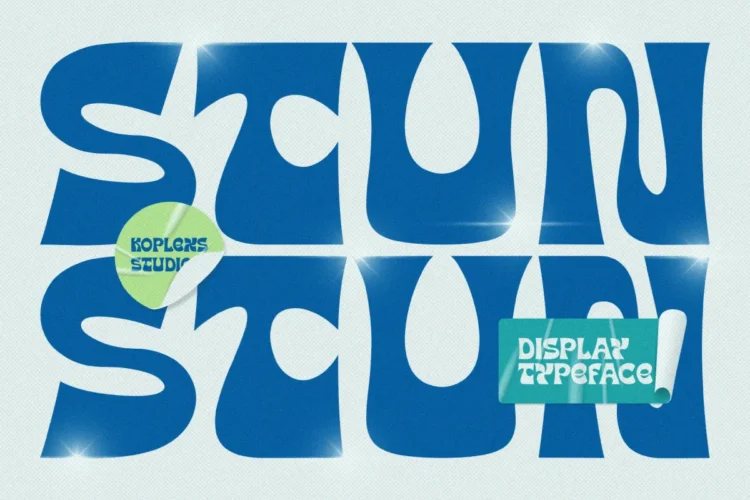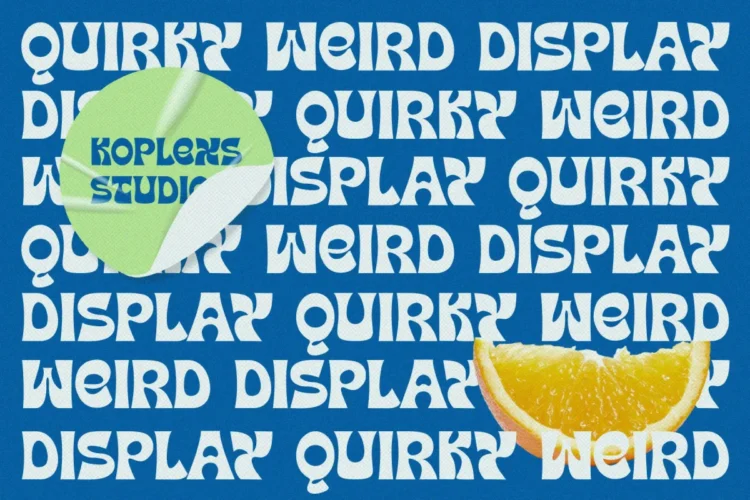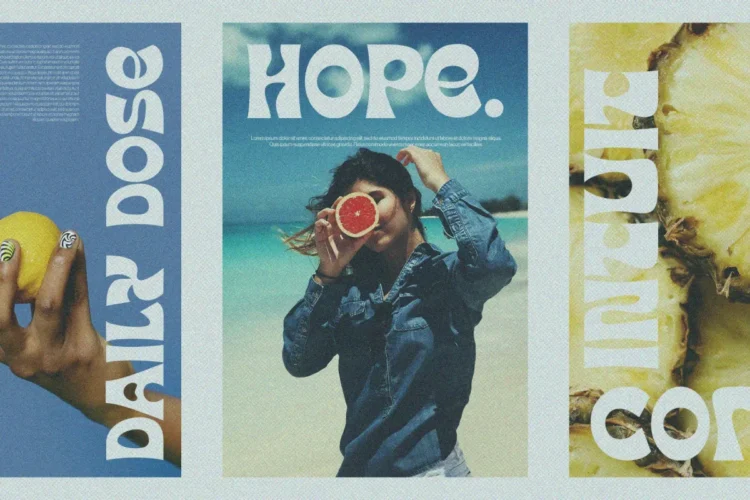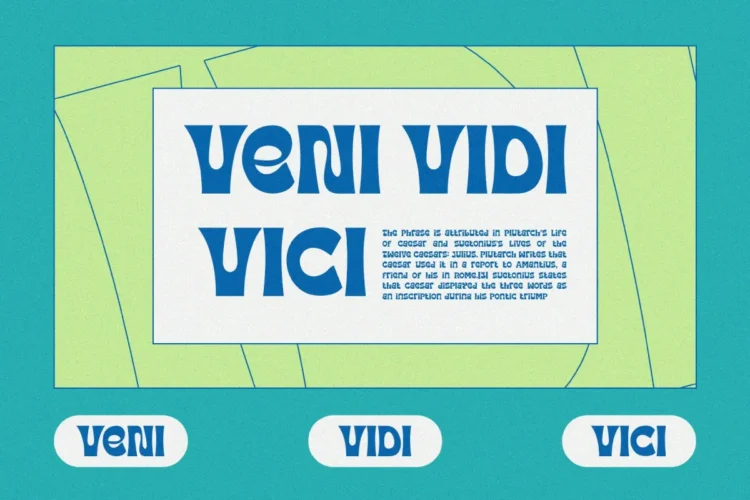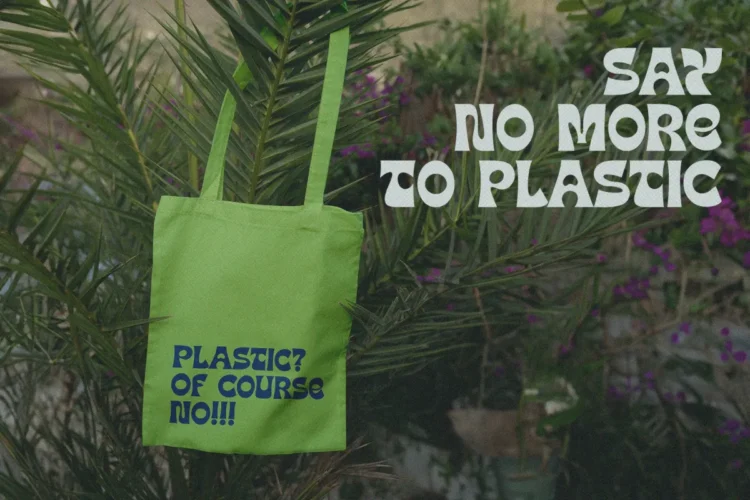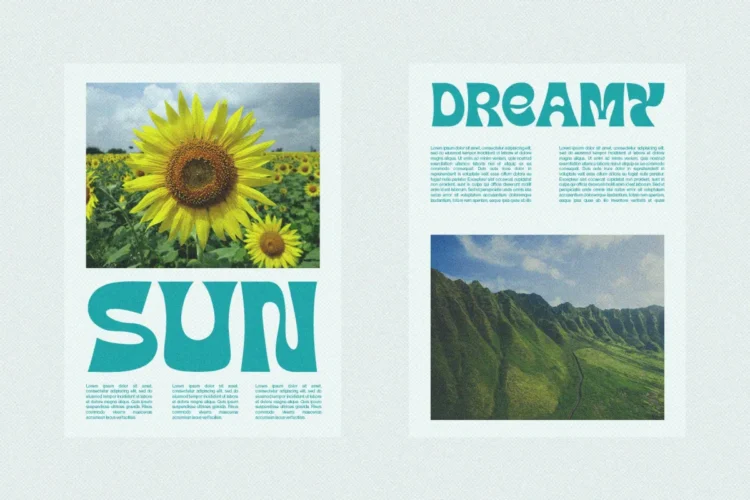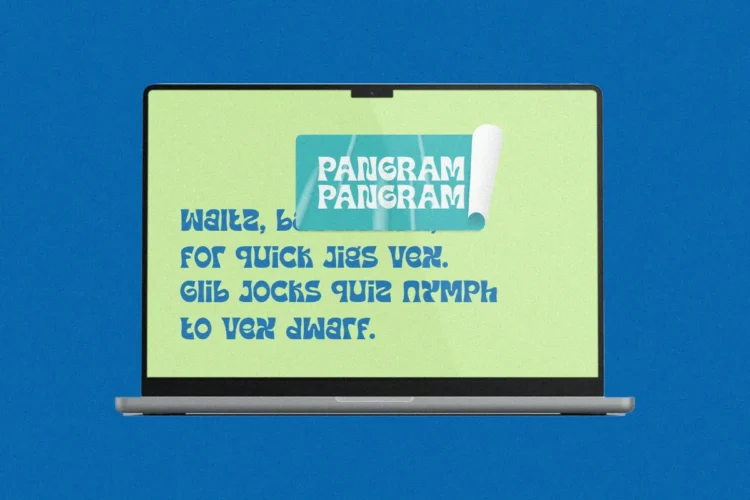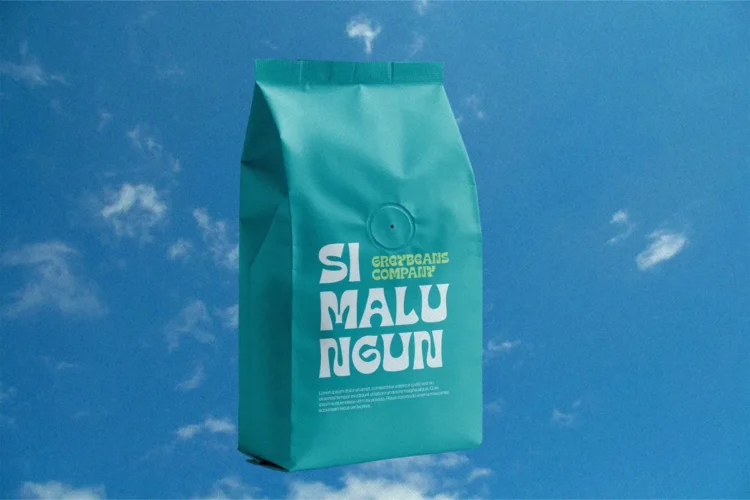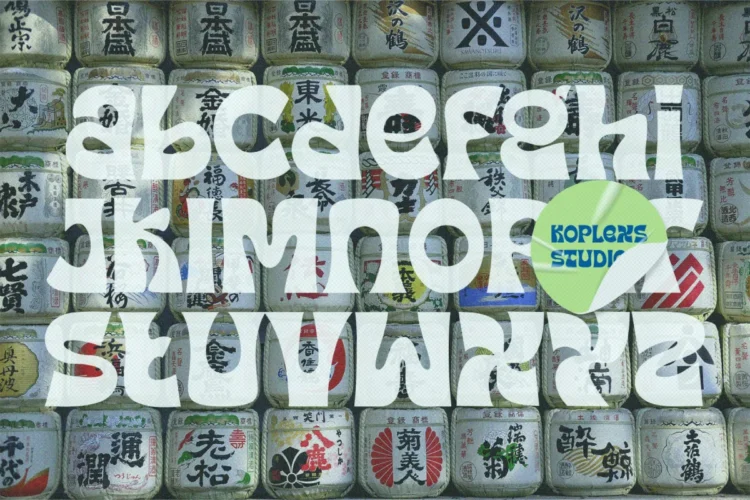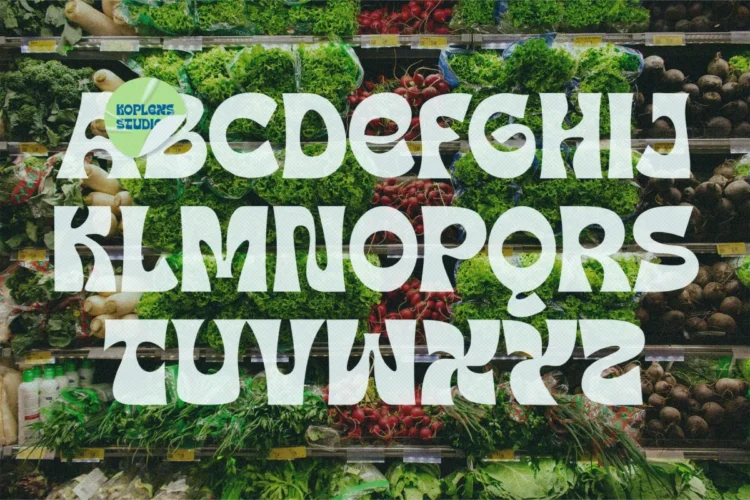
✨ Stun Font – Bold, Modern & Chunky Display Typeface for Branding, Posters & Logos
Stun Font is a bold display font that perfectly blends retro charm and modern flair. Designed as a chunky font with smooth serif details, this cool font brings personality and energy to any project. Ideal for branding, logos, posters, headlines, and covers, Stun Font adds a stunning visual punch that captivates attention instantly.
This modern font combines elegance and fun, making it a versatile branding font and goods font for creative businesses. Its thick, expressive letterforms make it stand out as a headline font, heading font, and poster font. Ideal for visual storytelling that demands impact.
Stun Font is versatile and works beautifully for :
- Logo & Branding Design
- Magazine & Poster Titles
- Product Packaging & Merch
- Social Media Visuals
- Album Covers & Event Flyers
- Editorial & Advertising Projects
With its playful yet elegant font structure, Stun Font delivers confidence and creativity in every curve your go-to bold font for unforgettable designs.